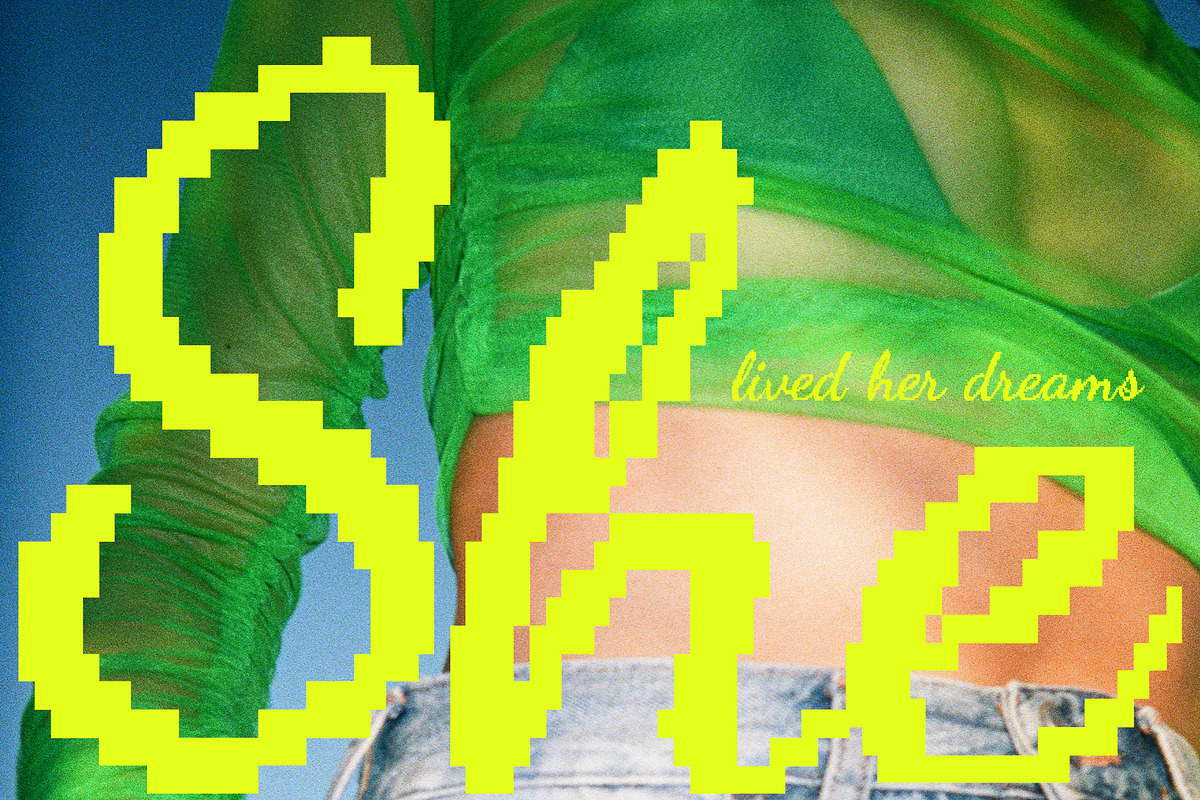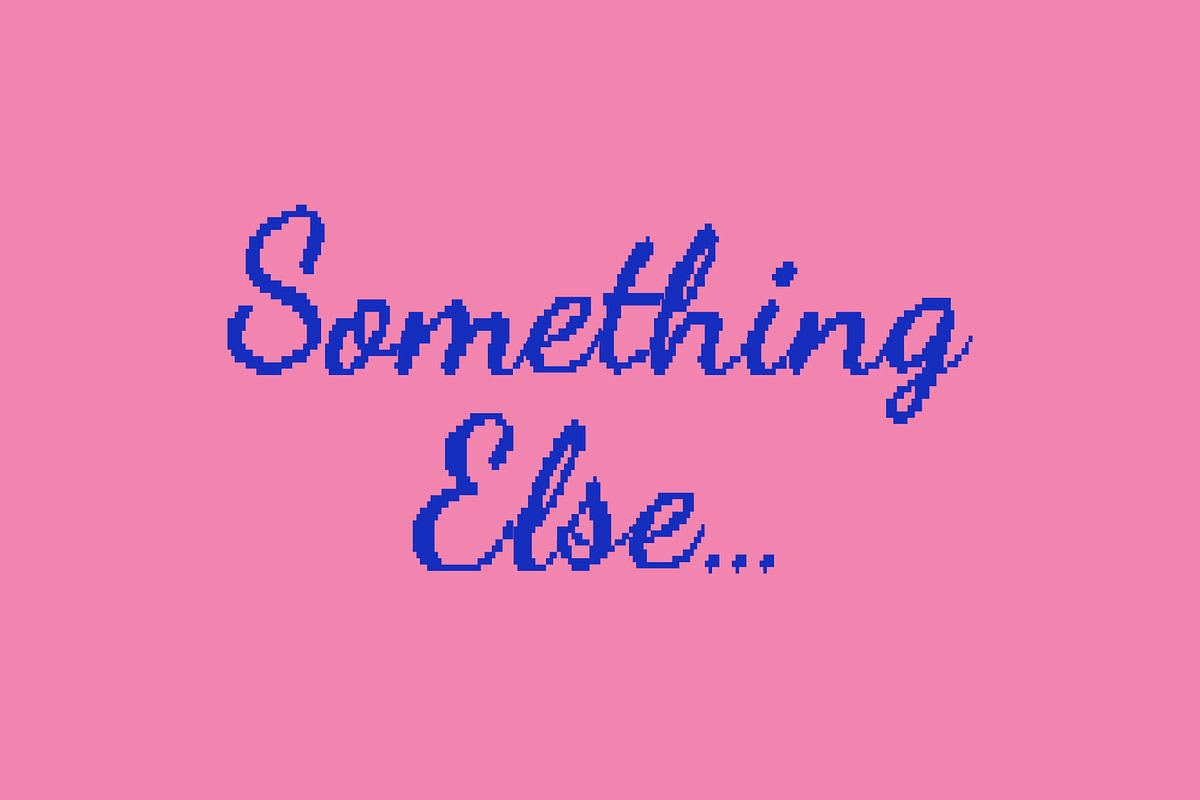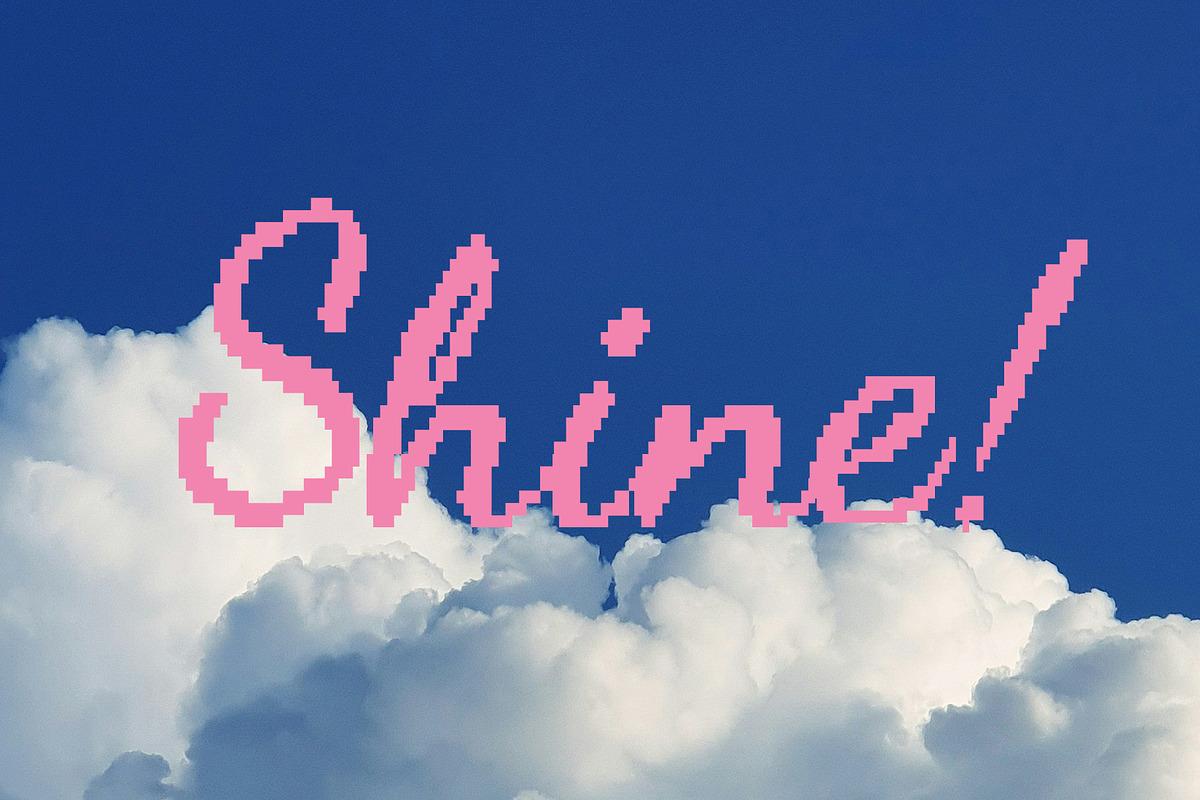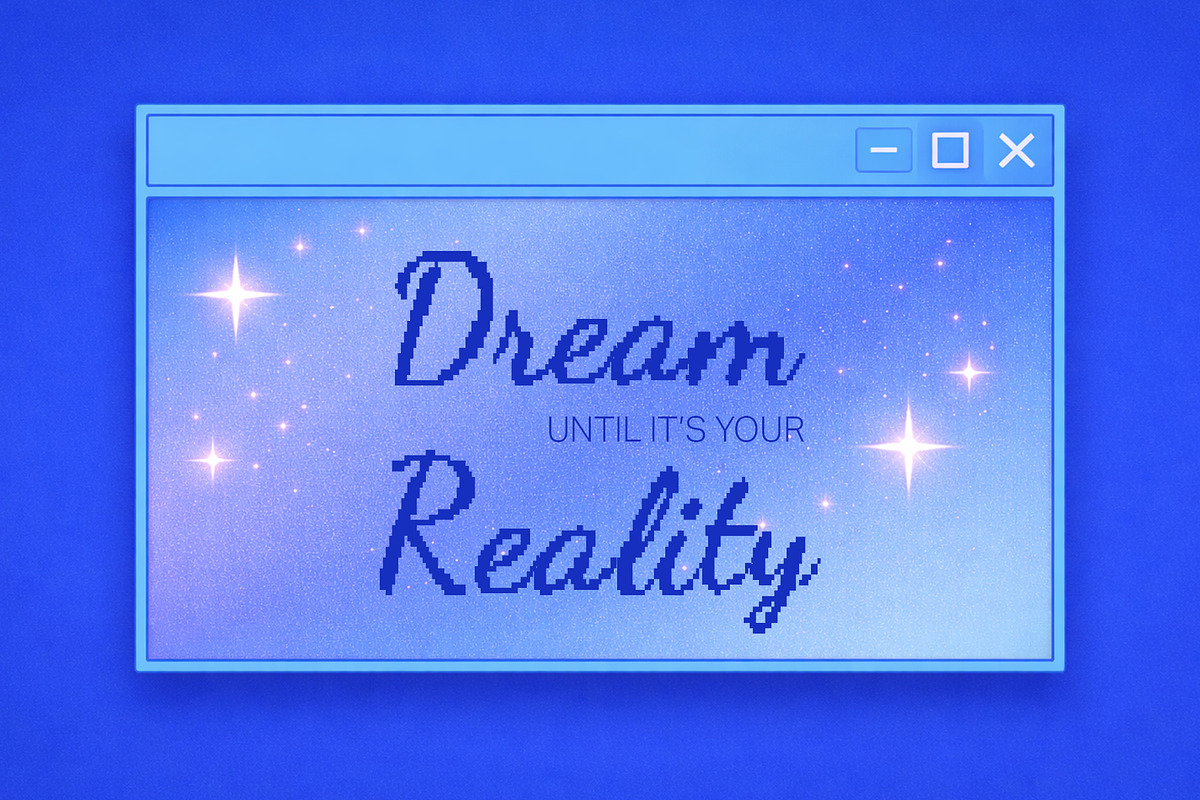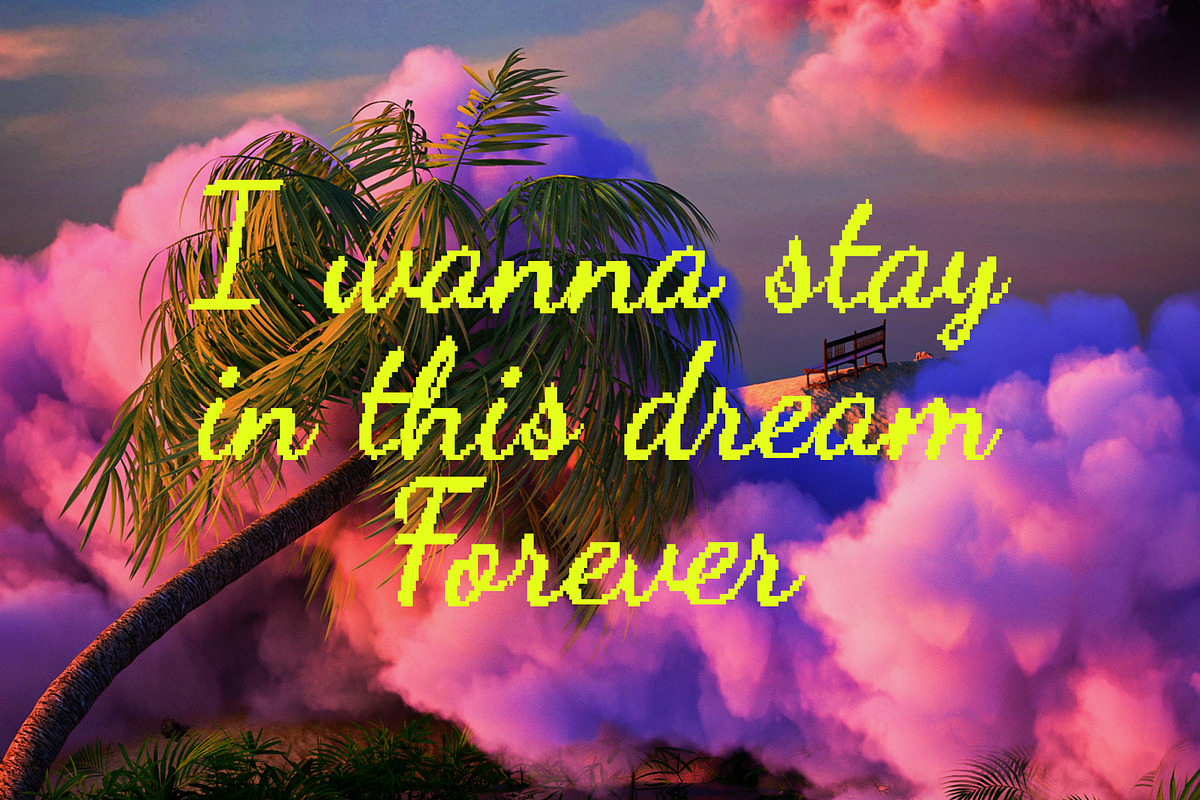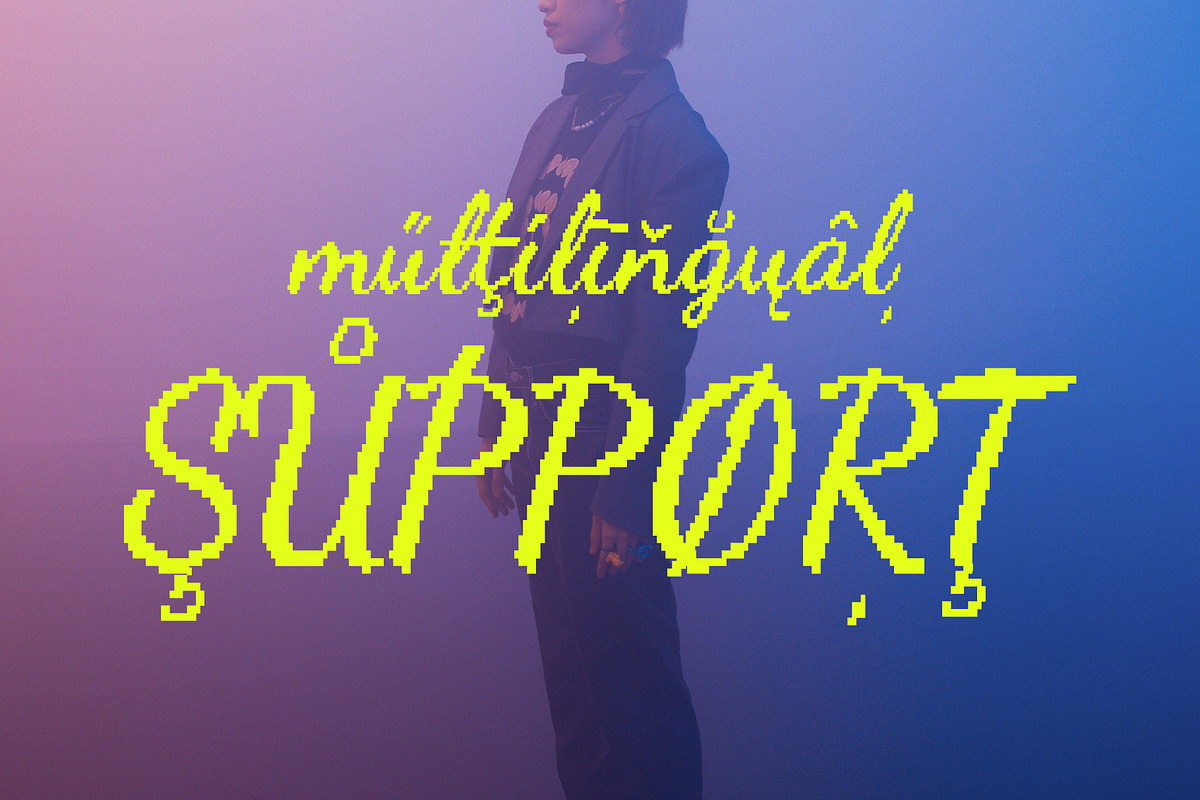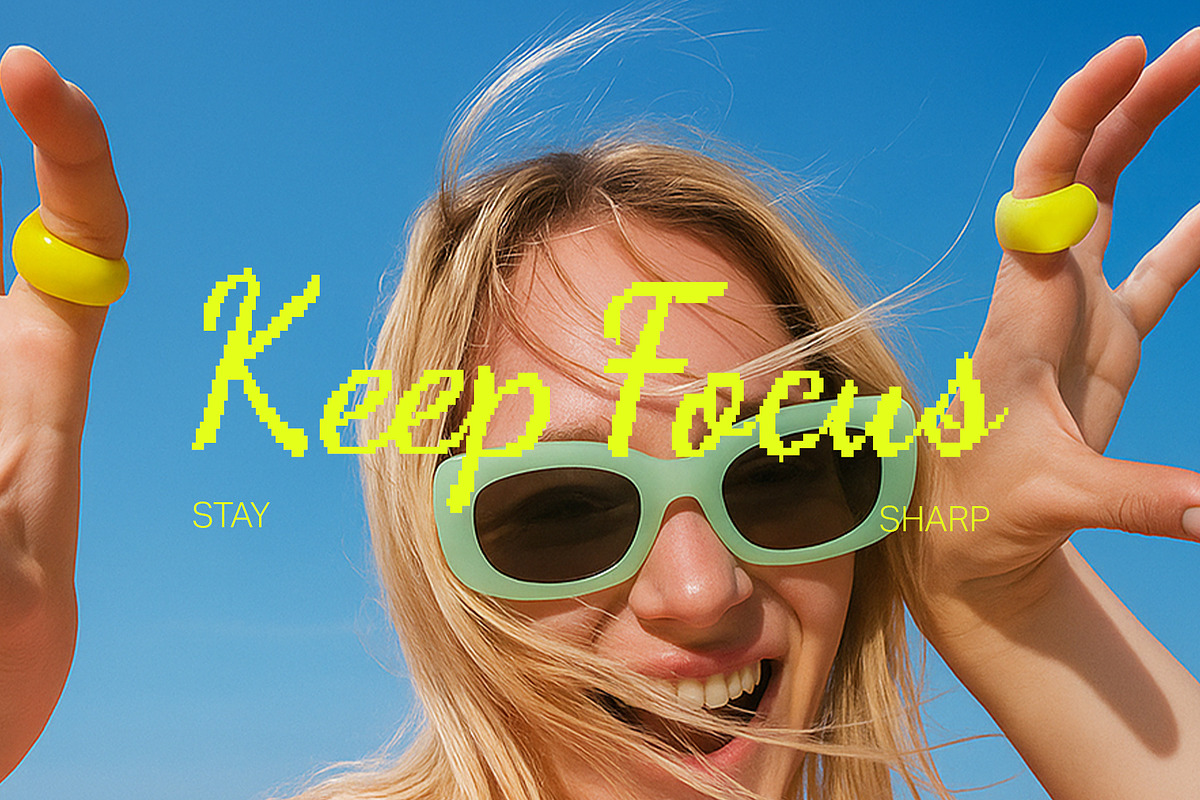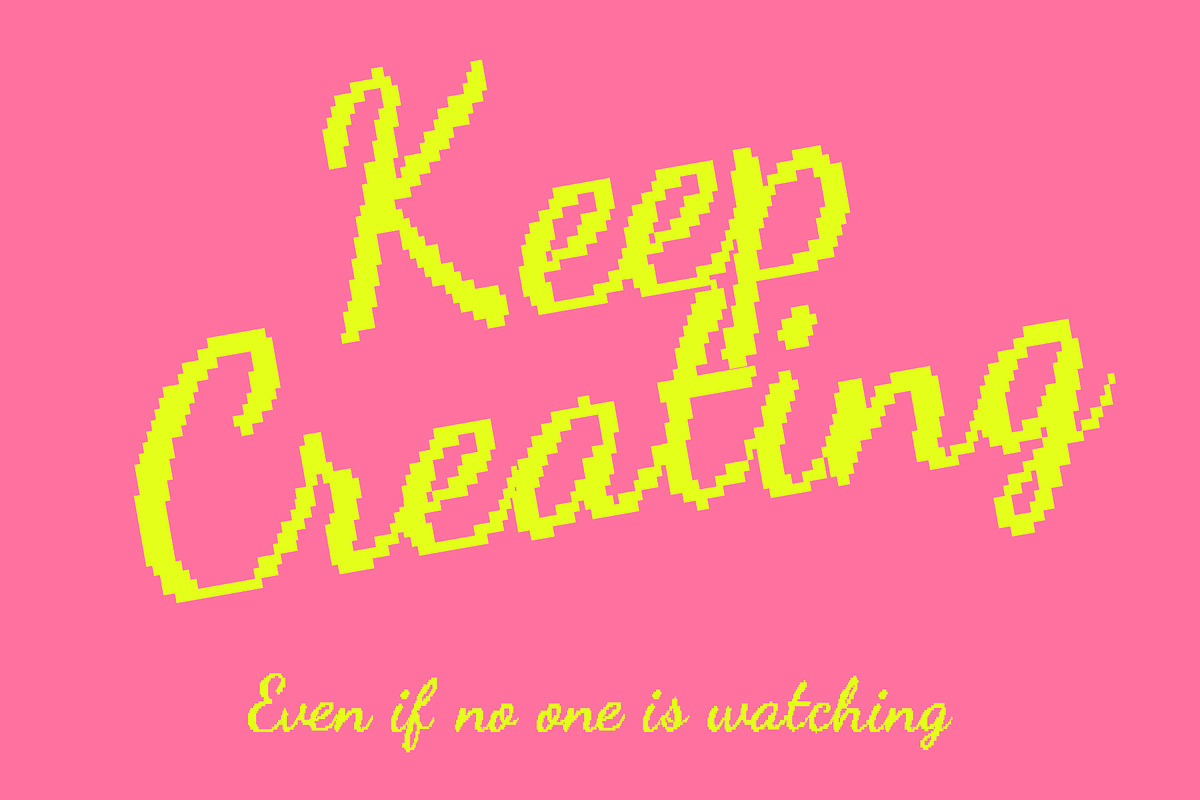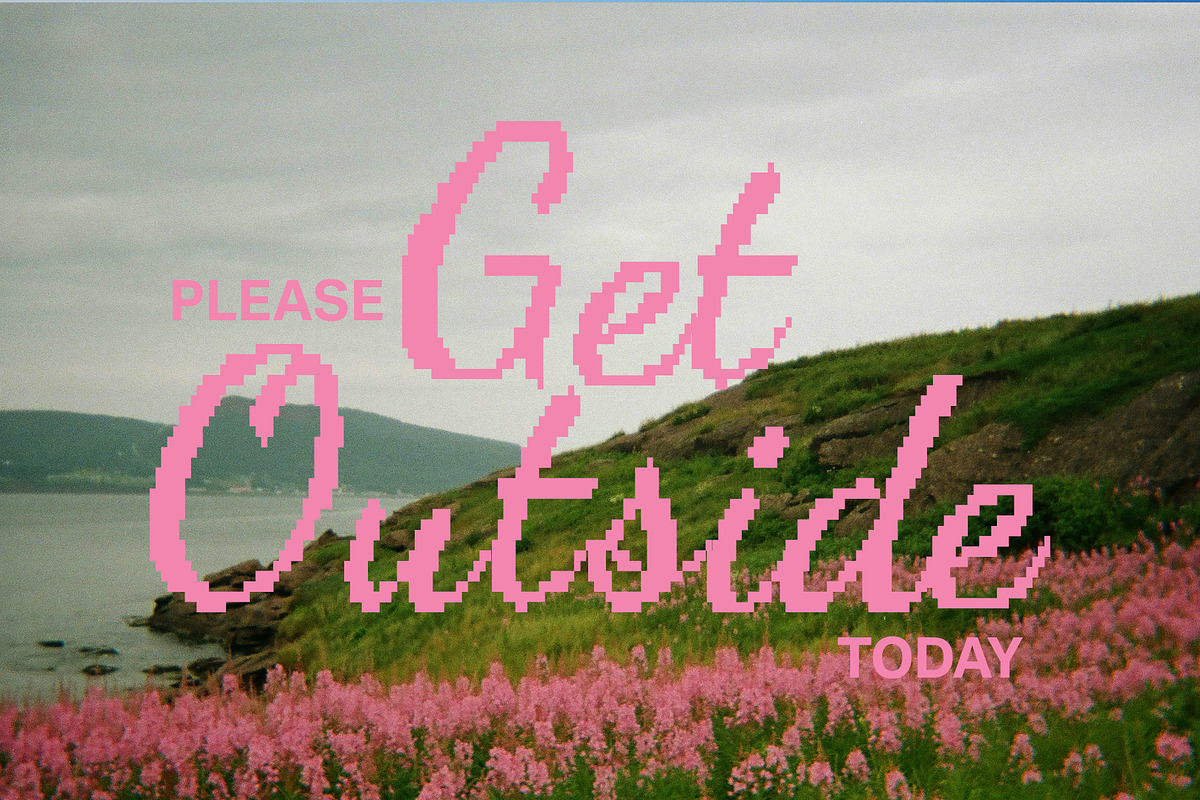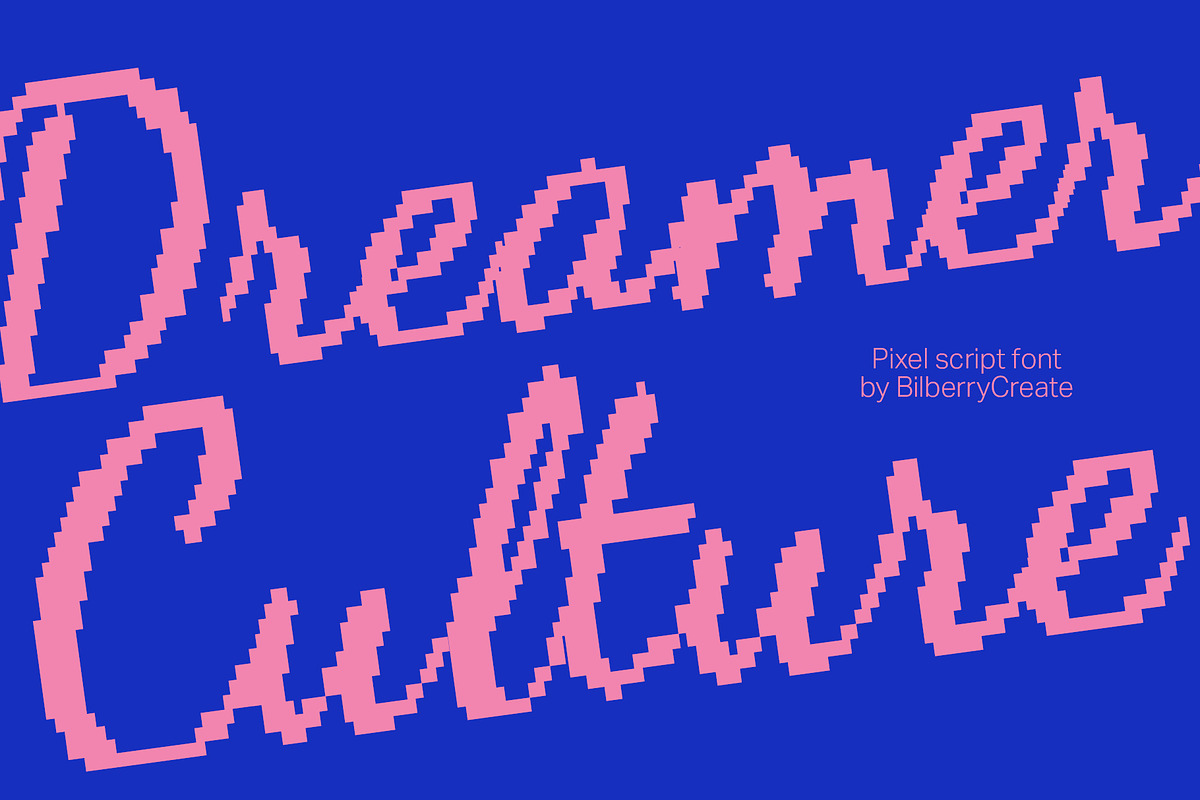
Dreamer Culture is a pixel script
Dreamer Culture is a playful pixel script font with a nostalgic digital feel and a soft, dreamy attitude. It blends retro computer aesthetics with a handwritten flow, making it perfect for designs that need a cute Y2K, cyber, indie, or pixel-art vibe.
This font works beautifully for branding, posters, social media graphics, packaging, stickers, album covers, apparel, and creative digital projects. Its bold pixel look makes every word feel fun, expressive, and full of personality. Dreamer Culture comes with multilingual support, so you can use it in a wider range of creative projects for different languages and audiences.
- logos and branding
- posters and album art
- social media posts
- packaging design
- stickers and stationery
- gaming-inspired visuals
- retro and Y2K aesthetics
Dreamer Culture is a great choice if you want your typography to feel sweet, bold, and instantly eye-catching.